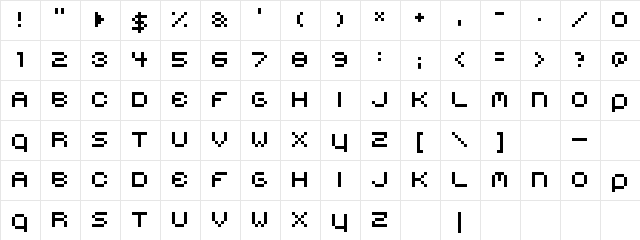
fontline6_2 Regular
Design Context for fontline6_2 Typeface
fontline6_2 is a composed and adaptable typeface that performs quietly and consistently across a wide range of design contexts.